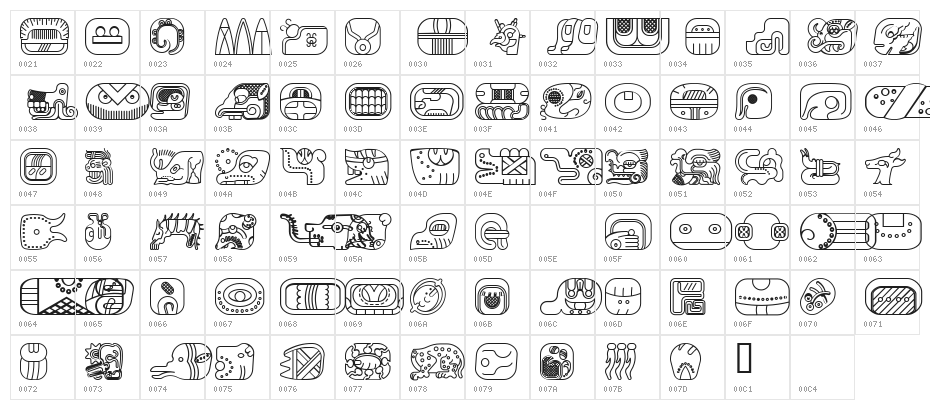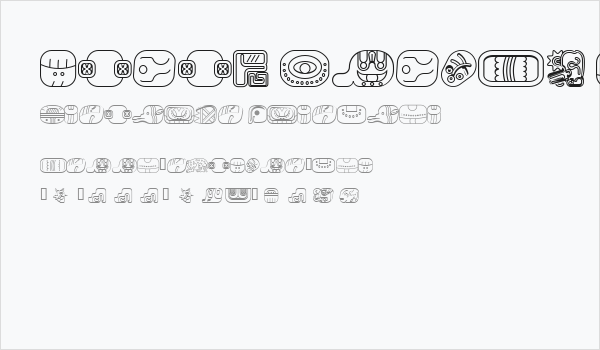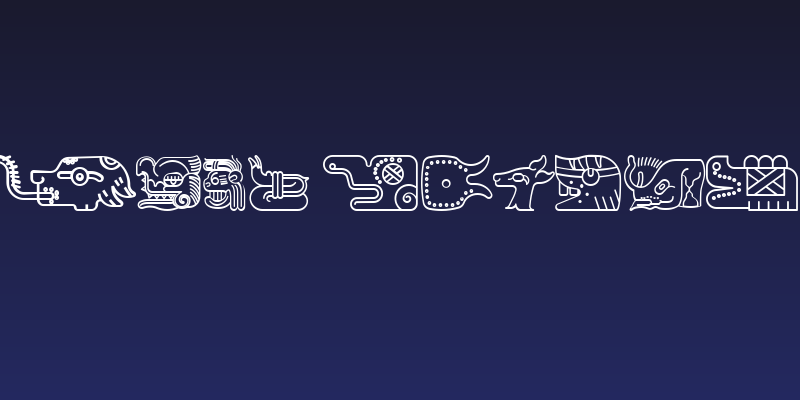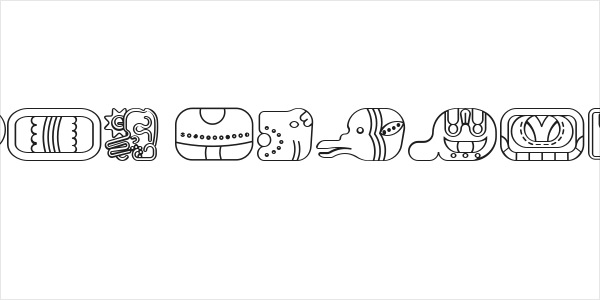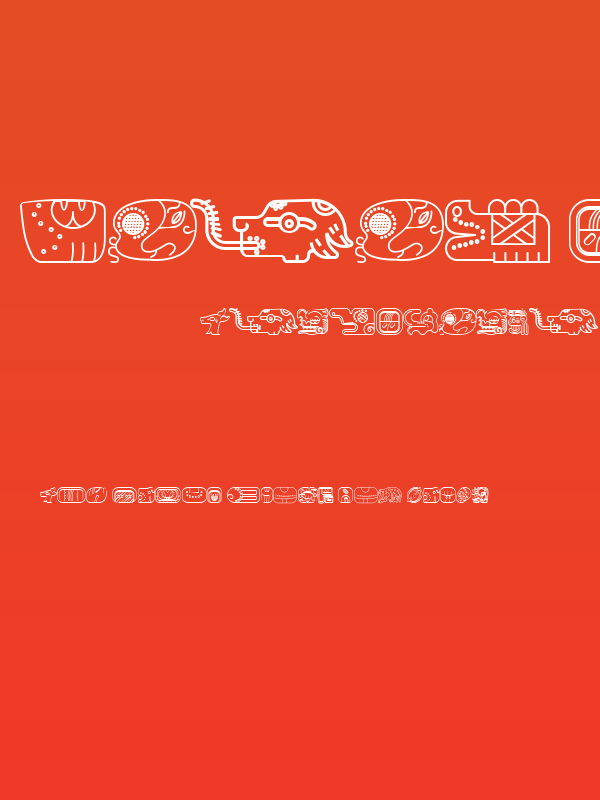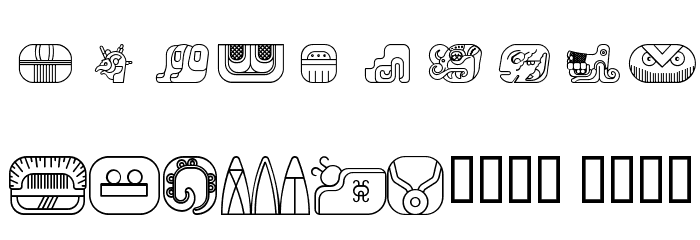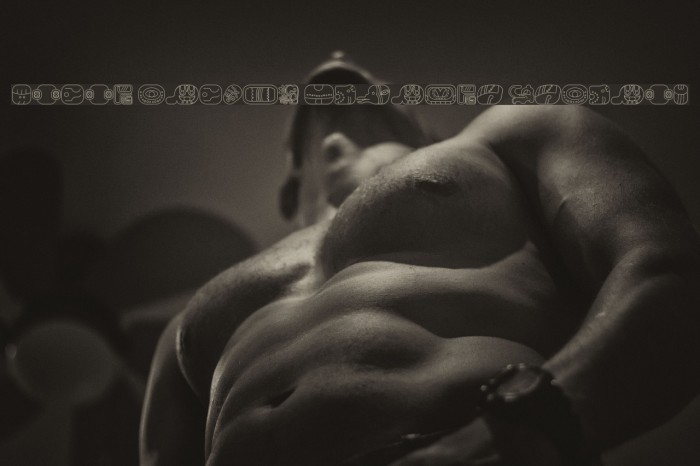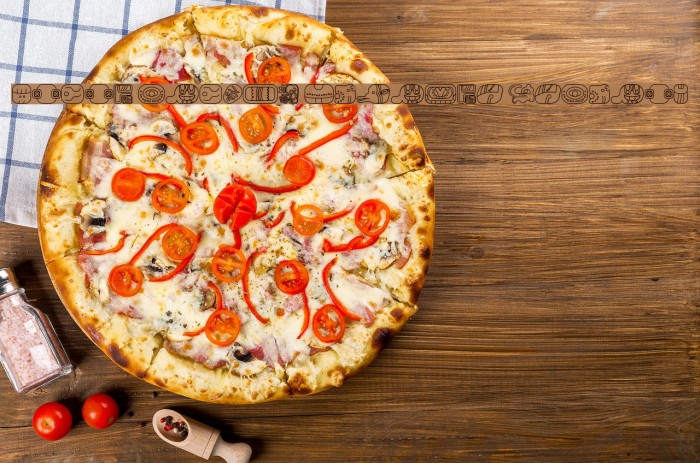
mayan glyphs outline Regular Font
✎ Dingbats
| Cas d'utilisation | Logos, Decorative designs, Themed artwork |
| Projets proposés | Ideal for cultural projects, themed artwork, educational materials on ancient civilizations, and decorative designs. |